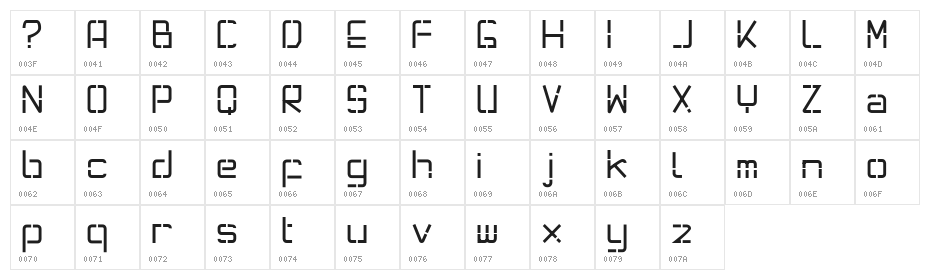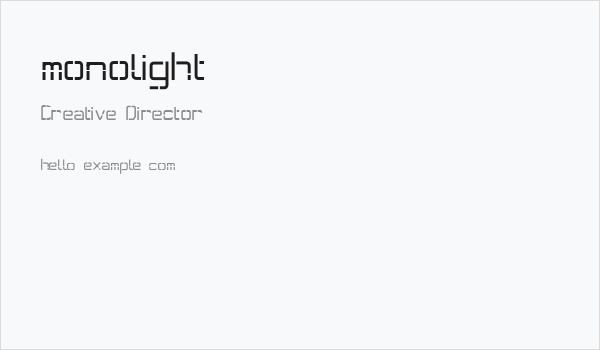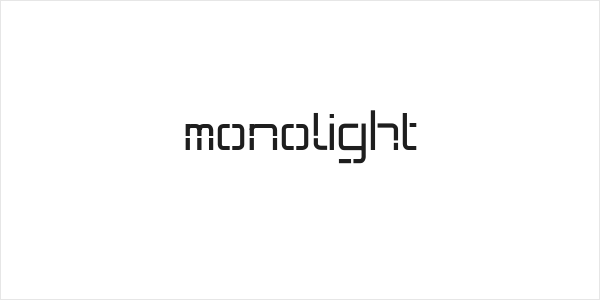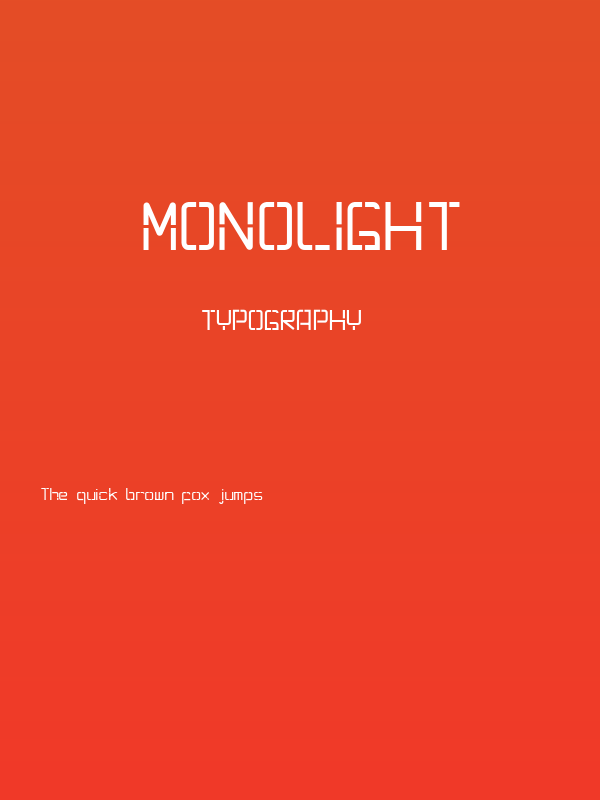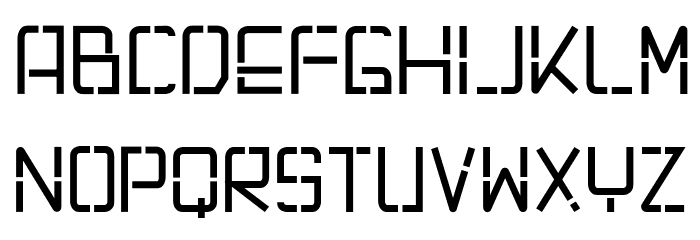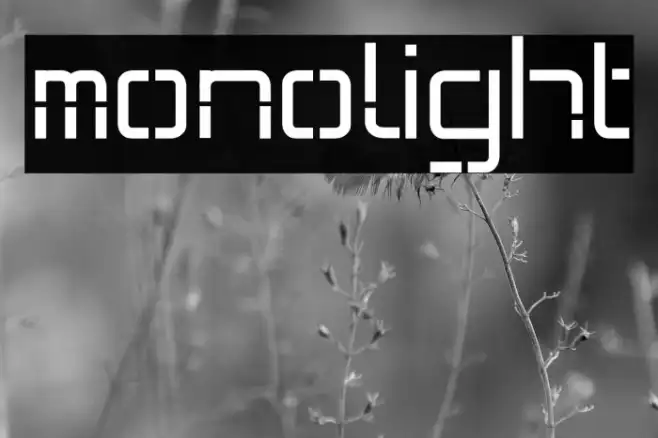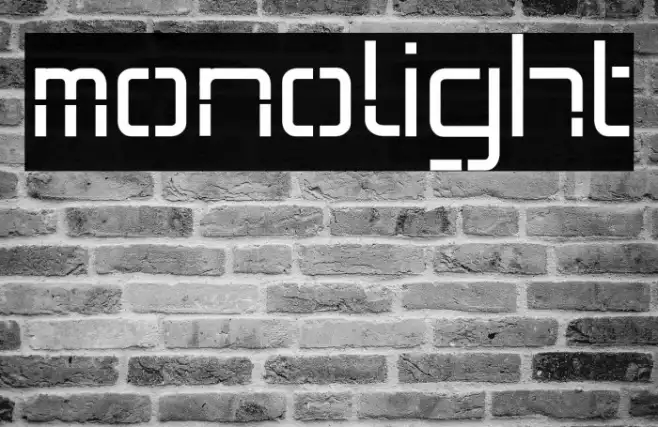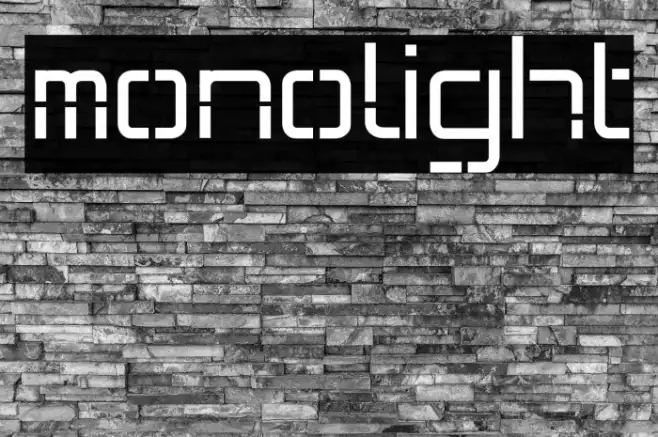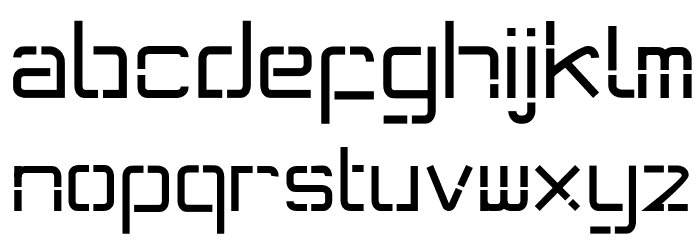
monolight Font
monolight Description
This font features a modern, geometric design with a monospaced structure. Each character is crafted with uniform width, creating a consistent and balanced appearance. The strokes are clean and precise, with a low contrast in thickness, emphasizing a sleek and contemporary look. The uppercase and lowercase letters maintain a similar height, enhancing readability and uniformity. The font's design incorporates subtle angular elements, adding a touch of uniqueness while preserving clarity. Its minimalist style makes it suitable for digital interfaces and modern branding projects.